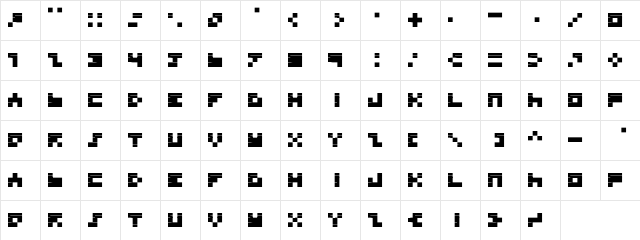
Complete BD TINYFONT Regular glyph index. Displaying only characters natively supported by BD TINYFONT Regular font.
BD TINYFONT is a composed and adaptable typeface that performs quietly and consistently across a wide range of design contexts. Its bold stroke weight gives it real presence on the page.